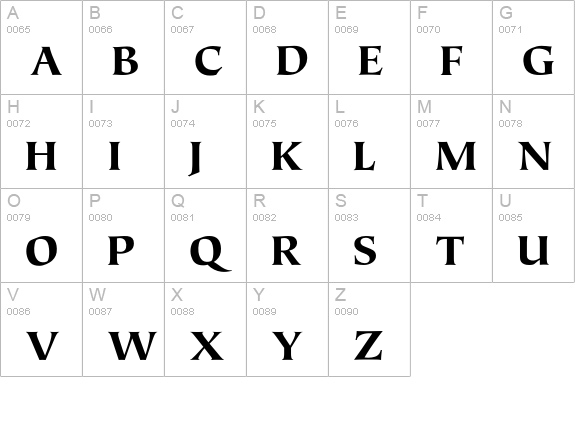
TiepoloICGBlack Font Details
TiepoloICGBlack is a stunning font that exudes elegance and sophistication. Its bold and confident letterforms make a powerful statement, making it the perfect choice for headlines, titles, and other attention-grabbing designs. With its sleek and stylish appearance, TiepoloICGBlack adds a touch of modernity to any project. It effortlessly combines a classic feel with a contemporary twist, making it versatile and suitable for a wide range of applications. One of the best features of TiepoloICGBlack is that it is freely available to download at FontsMarket.com. This means that you can easily access this exceptional font and incorporate it into your design projects without any cost. Whether you're working on branding materials, advertisements, or any other design project that requires a bold and sophisticated font, TiepoloICGBlack is the perfect choice. Its clean lines and strong presence will captivate your audience and leave a lasting impression. So why wait? Download TiepoloICGBlack today from FontsMarket.com and elevate your designs to new heights.